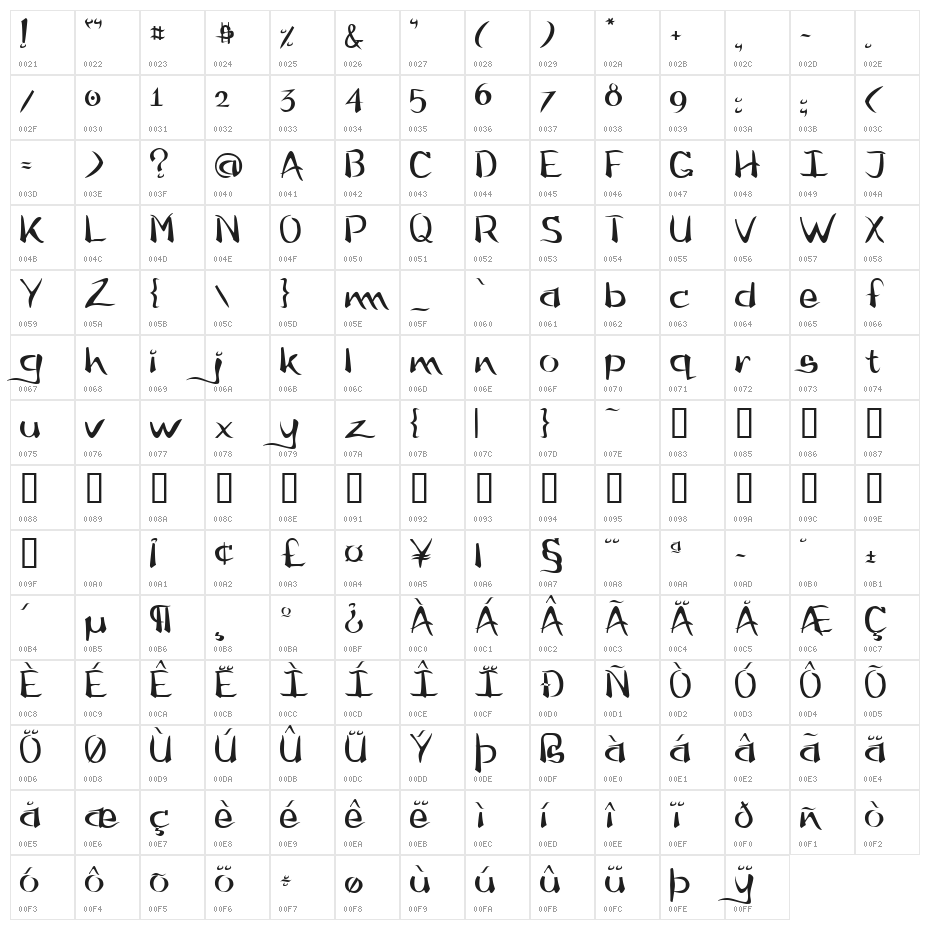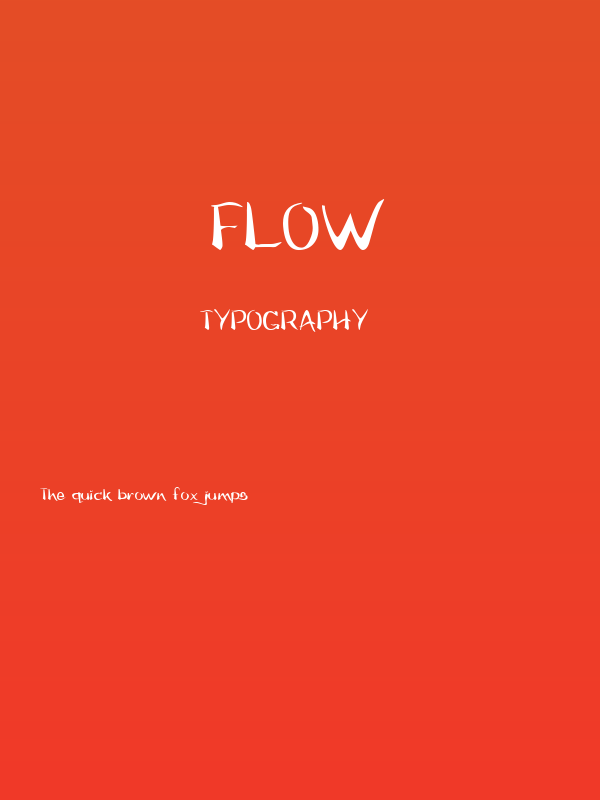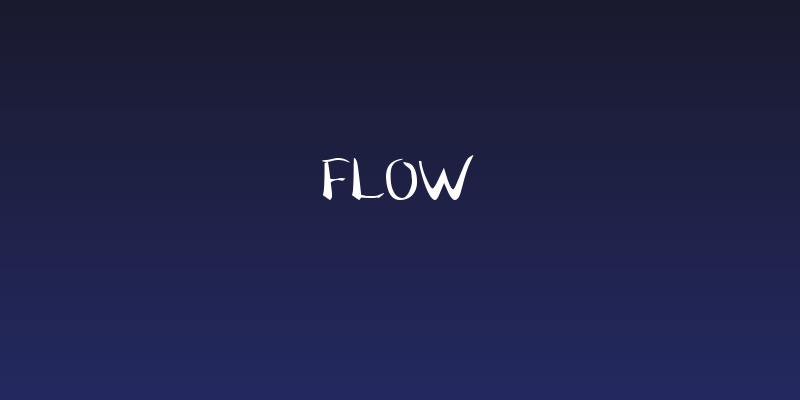
Flow Font
| Gesamtstil | Artistic, Whimsical |
| Anwendungsfall | Logos, Invitations, Artistic Designs |
| Vorgeschlagene Projekte | Ideal for creative projects, branding, artistic designs, invitations, and decorative purposes. |